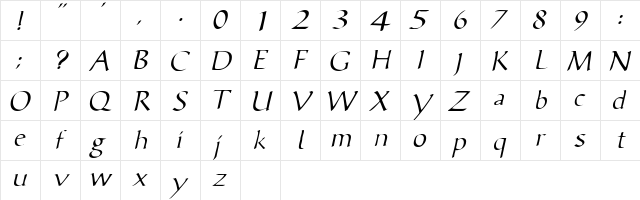
ViciSSK Italic
Design Context for ViciSSK Typeface
ViciSSK takes a measured approach to typography — its balanced proportions and neutral character make it a reliable workhorse for both digital and print work. Its italic angle brings a sense of urgency and motion to the letterforms.
Pro Tip: Try ViciSSK for annotation and caption copy alongside an upright companion — the contrast in angle creates a dynamic but ordered typographic system.